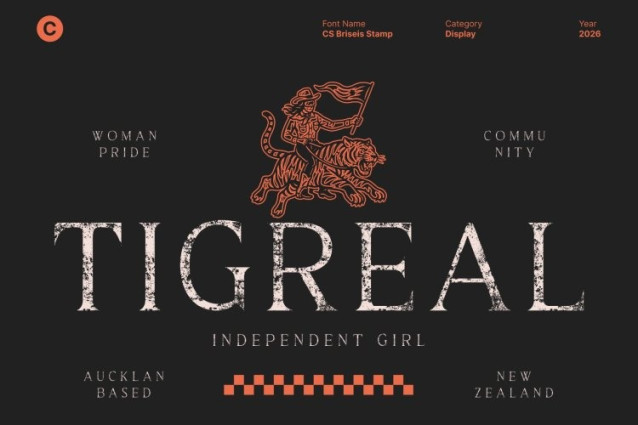
CS Briseis Stamp Font
CS Briseis Stamp Font This is a luxury serif font defined by refined curves and elegant structure, enriched with a subtle stamp texture. Designed with precision and grace, it embodies timeless beauty while introducing an artistic, vintage character. The stamped effect adds depth and warmth, creating a refined yet expressive typeface that feels both classic and contemporary.
Refined Curves with Textured Grace
Every detail of this font is crafted to express clarity, balance, and class. Clean lines and smooth serifs create a graceful rhythm across text, while the stamped surface introduces gentle imperfections inspired by traditional print techniques. This combination maintains readability while enhancing the font’s luxurious, handcrafted feel.
Perfect for Editorials, Branding, and Premium Packaging
From editorials and book covers to luxury branding and product packaging, shines in high-end applications. Its elegant proportions and subtle texture complement both minimalist modern layouts and classic premium design concepts, adding sophistication without overpowering the composition.
A Timeless Typeface with Artistic Character
Blending traditional serif charm with modern refinement, offers a timeless solution for designers seeking elegance with personality. Its refined form and vintage stamp texture make it ideal for visuals that feel luxurious, intelligent, and enduringly stylish.